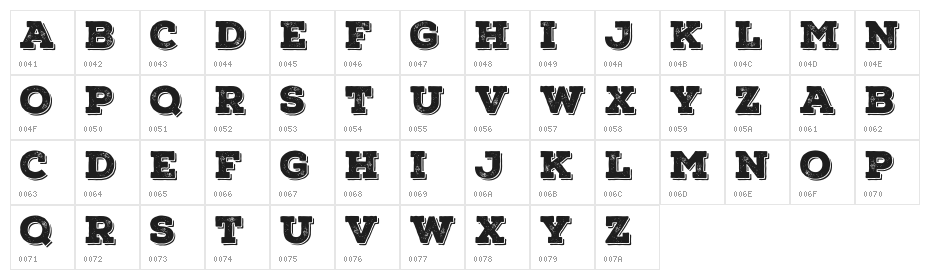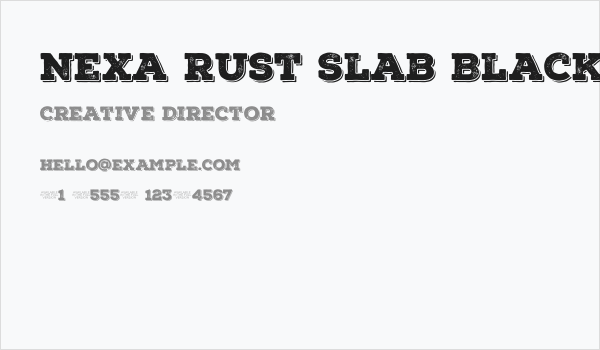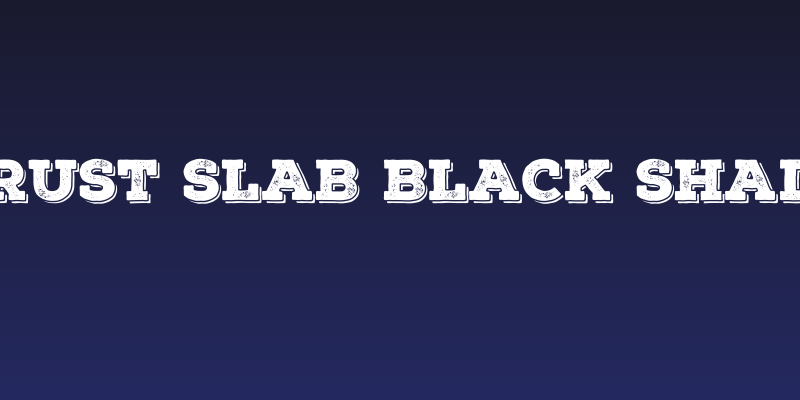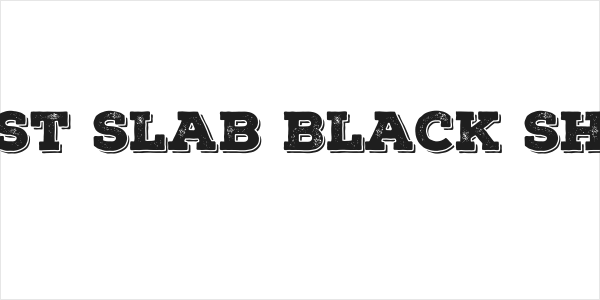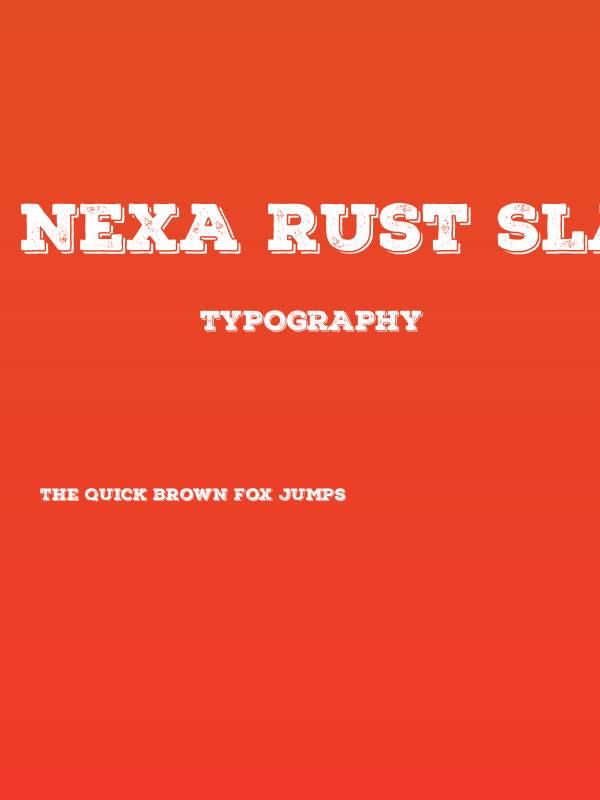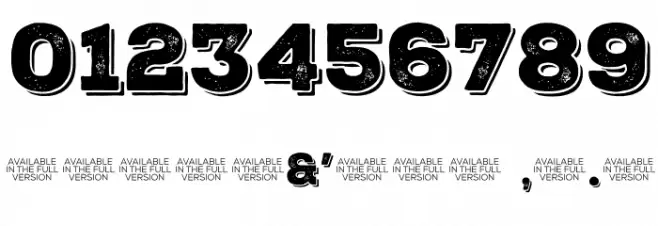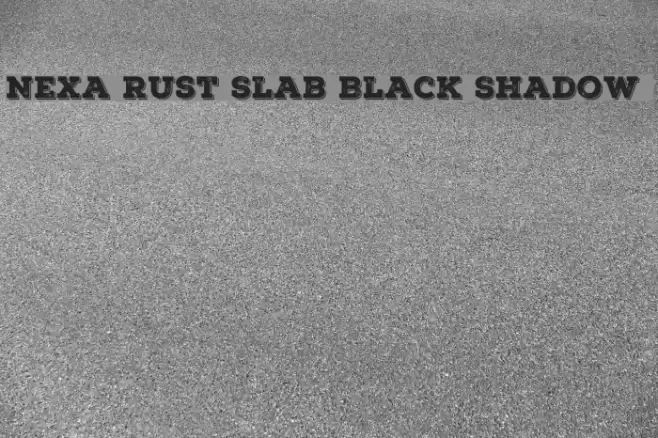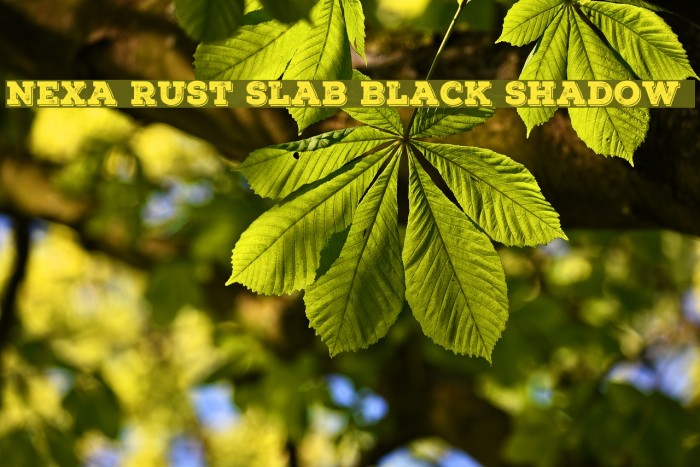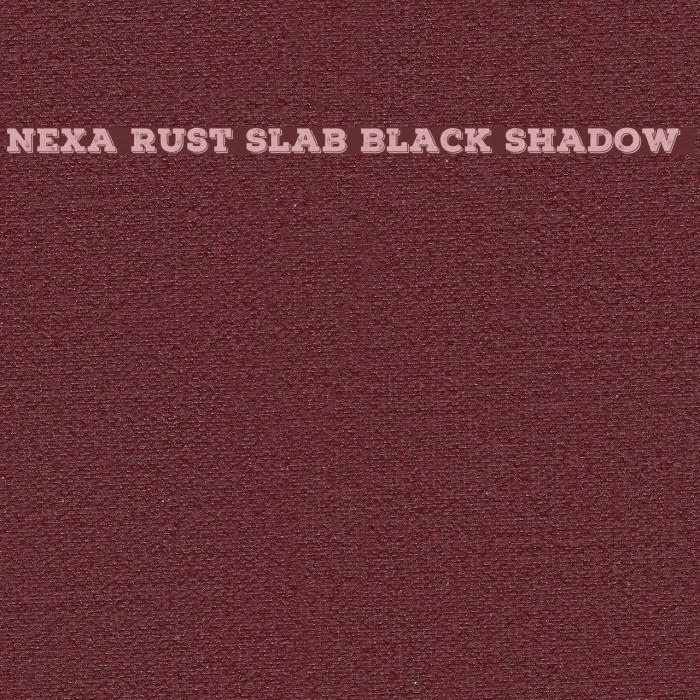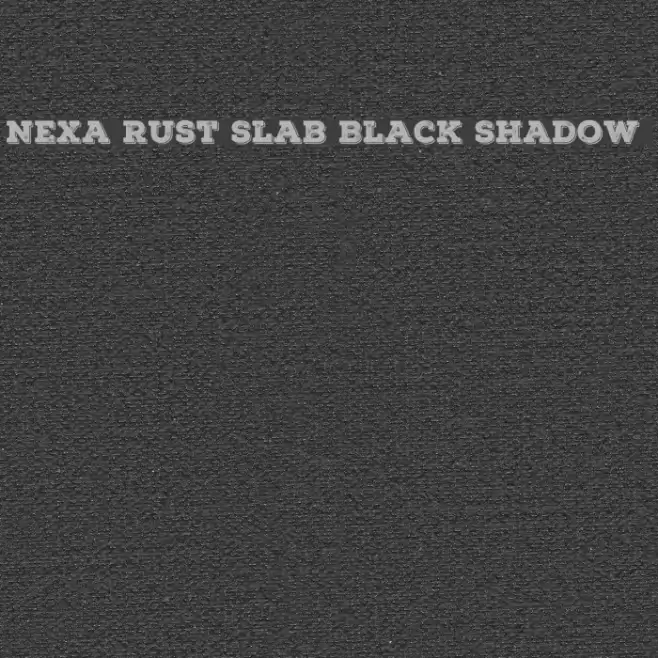
This font features a bold, slab serif style with a distinct shadow effect that gives it a three-dimensional appearance. The characters are robust and impactful, with a distressed texture that adds a rustic and vintage feel. The uppercase letters are particularly striking, with thick strokes and a strong presence. The numbers and special characters maintain the same boldness and texture, ensuring consistency across all glyphs. This font is ideal for creating eye-catching headlines or logos that require a touch of rugged charm. Its unique style makes it stand out, making it suitable for projects that aim to convey strength and authenticity.
| Proposed Projects | Ideal for branding, posters, logos, and any design project that requires a bold, vintage aesthetic. |